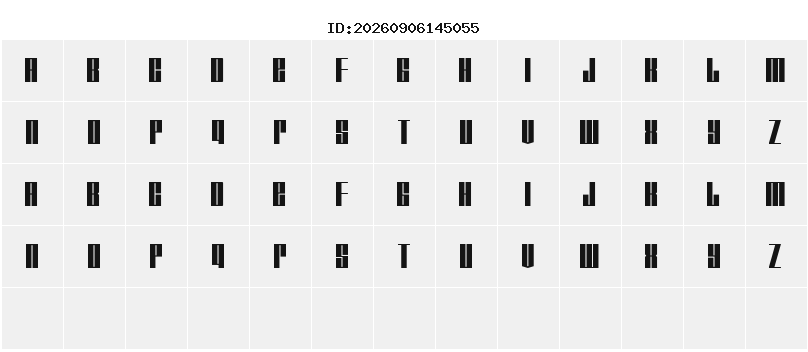
Tagmarker Preview
About Tagmarker.ttf
Tagmarker.ttf is a modern, elegant sans-serif font designed for ultimate readability and visual harmony. Perfect for branding, headlines, web design, and print materials.